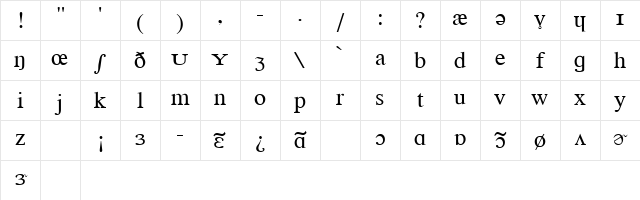
Phonetic Regular
Complete Phonetic Regular glyph index. Displaying only characters natively supported by Phonetic Regular font.
Design Context for Phonetic
Phonetic is a composed and adaptable typeface that performs quietly and consistently across a wide range of design contexts.